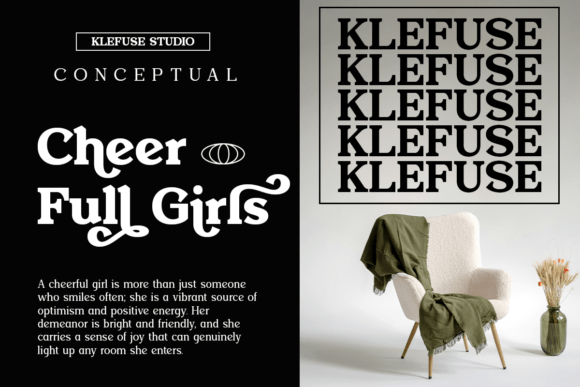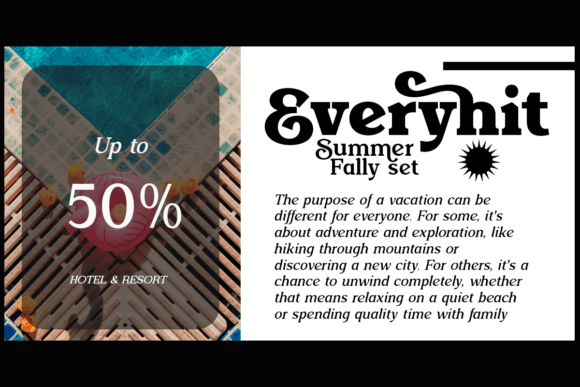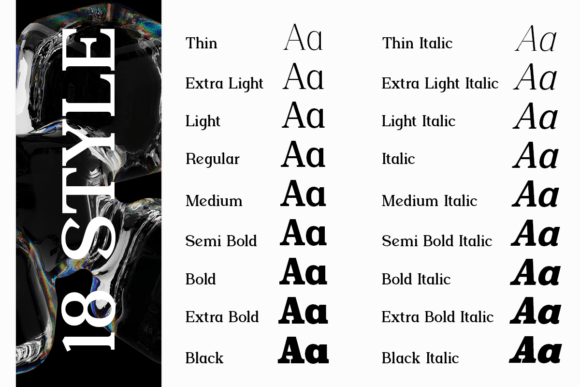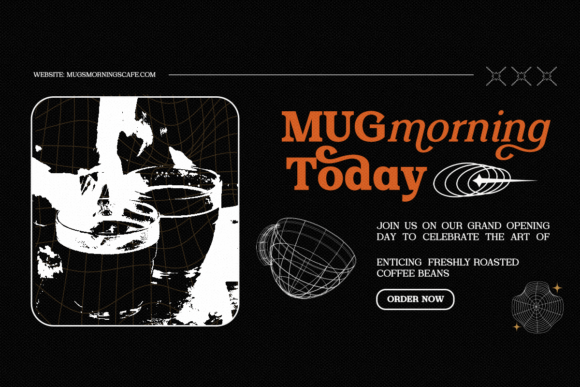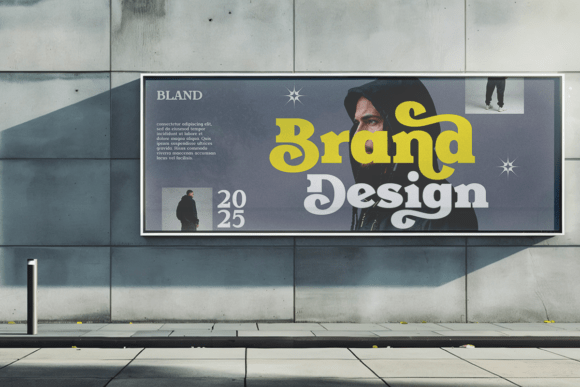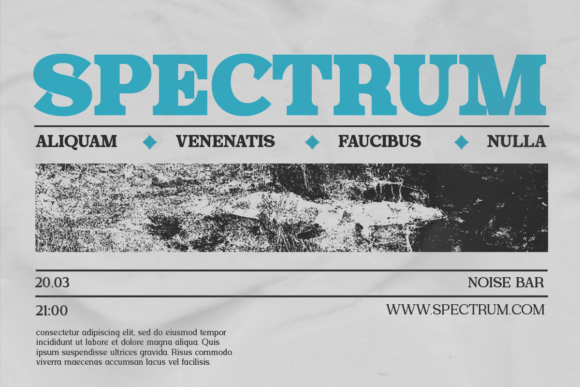
Introducing Foermality Font: Elevate Your Design with Elegance and Versatility
In the world of typography, a font can make or break a design. For designers seeking a perfect blend of classic sophistication and modern aesthetics, Foermality Font is here to revolutionize your creative projects. This modern serif font is crafted with elegance, versatility, and style in mind, making it an indispensable tool for a wide range of design applications.
A Timeless yet Modern Feel
Foermality is designed to bring a timeless yet modern feel to every project. Its refined details and carefully crafted letterforms make it ideal for designers who want to add a touch of sophistication to their work. Whether you’re creating branding materials, logos, magazines, editorial designs, packaging, posters, wedding invitations, fashion projects, websites, or social media templates, Foermality is the perfect choice.
Flexibility at Its Finest: 18 Styles to Choose From
What sets Foermality apart is its impressive range of styles. The font family features 18 styles, ranging from Thin to Black, including Italics. This level of flexibility makes Foermality perfect for a wide range of creative needs. Whether you’re looking for a subtle, elegant look or a bold, eye-catching statement, Foermality has got you covered.
Foermality is designed with designers and crafters in mind. Its versatility and range of styles make it an excellent choice for:
- Branding: Create a lasting impression with Foermality’s elegant and sophisticated letterforms.
- Logos: Make your logo stand out with Foermality’s unique and refined design.
- Magazines and Editorial Design: Add a touch of class to your publications with Foermality’s classic yet modern feel.
- Packaging: Elevate your packaging design with Foermality’s sophisticated and versatile font.
- Posters: Create eye-catching posters with Foermality’s bold and elegant letterforms.
- Wedding Invitations: Make your wedding invitations truly special with Foermality’s elegant and refined design.
- Fashion Projects: Add a touch of glamour to your fashion projects with Foermality’s sophisticated and modern font.
- Websites and Social Media Templates: Create a lasting impression online with Foermality’s versatile and elegant design.
Why Choose Foermality Font?
Foermality Font offers a unique combination of elegance, versatility, and style, making it the perfect choice for designers and crafters. Here are just a few reasons why you should choose Foermality:
- Unique and Refined Design: Foermality’s carefully crafted letterforms make it stand out from other fonts.
- Highly Flexible: With 18 styles to choose from, Foermality is perfect for a wide range of creative needs.
- Timeless yet Modern Feel: Foermality brings a timeless yet modern feel to every project, making it perfect for designers seeking a classic yet contemporary look.
| Font Name | Foermality Font |
| Author | Laroibatype |
In conclusion, Foermality Font is a game-changer for designers and crafters seeking a perfect blend of elegance, versatility, and style. With its refined details, carefully crafted letterforms, and impressive range of styles, Foermality is the perfect choice for a wide range of creative projects. Whether you’re creating branding materials, logos, magazines, editorial designs, packaging, posters, wedding invitations, fashion projects, websites, or social media templates, Foermality is sure to elevate your design to the next level.